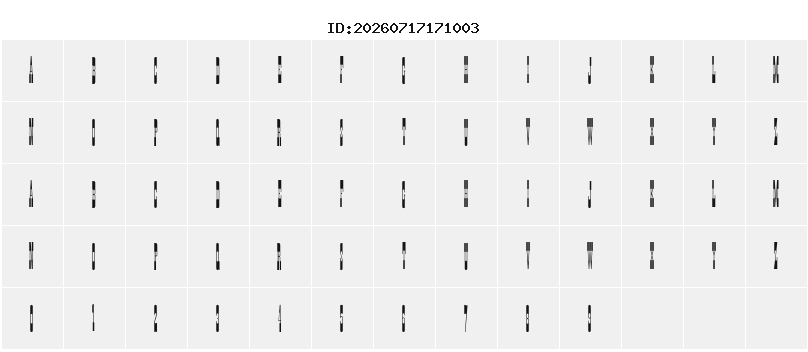
BigTope Preview
• Font Name: BigTope
• Full Font Name: BigTope
About BigTope.ttf
BigTope.ttf is a modern, elegant sans-serif font designed for ultimate readability and visual harmony. Perfect for branding, headlines, web design, and print materials.